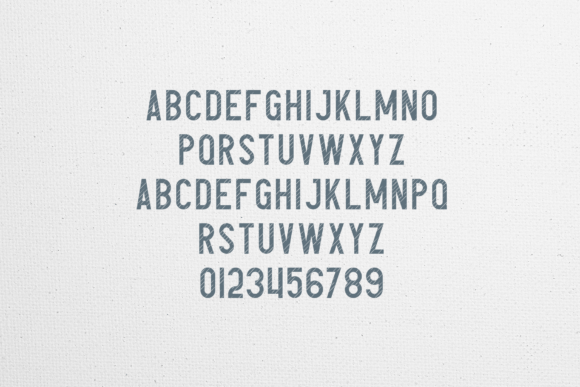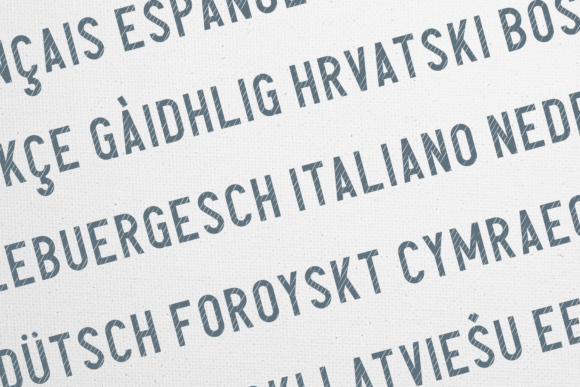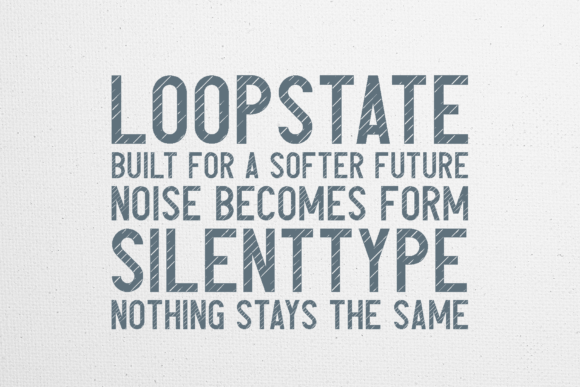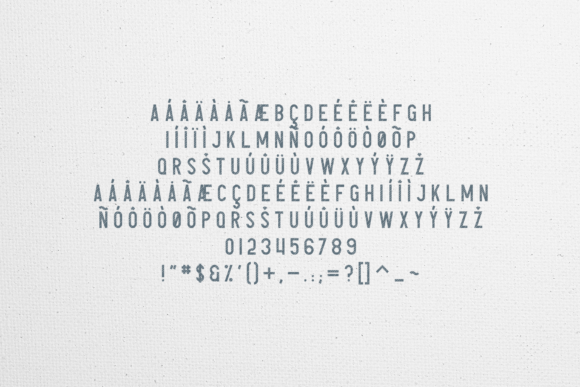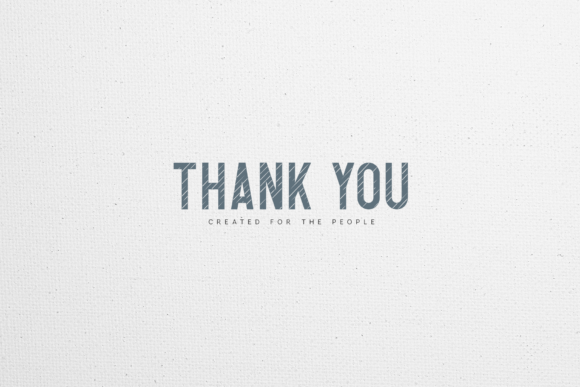
The Power of Typography: Unleashing the Potential of Avoqado Font
Have you ever been stuck on a design project, pouring over font options, trying to find that perfect combination of style and impact? We’ve all been there. For designers, the perfect font can make or break a project. And that’s where Avoqado Font comes in – a bold, vintage display sans serif typeface designed to grab attention and leave a lasting impression.
Avoqado Font is more than just a font – it’s a statement piece. With its modern structure and nostalgic graphic style, it’s the perfect tool for creating eye-catching titles and retro-inspired branding. Whether you’re designing posters, packaging, or social media visuals, Avoqado Font is sure to stand out. Its versatility and boldness make it a valuable addition to any designer’s toolkit, and its unique style is sure to add a touch of personality to any project.
Avoqado Font Key Features
- Font Family: Avoqado Font is a modern sans-serif typeface designed for digital use, making it ideal for web and mobile applications.
- Character Set: Supports a wide range of languages, including Latin, Cyrillic, and Greek alphabets, making it a versatile choice for global projects.
- Unique Characteristics: Avoqado Font features a distinctive, rounded sans-serif design with a focus on legibility and readability, making it perfect for body text and headings.
Avoqado Font Review
I recently had the chance to work with Avoqado Font, and I have to say, it’s an interesting addition to the world of typography. Here’s what I liked and didn’t like:
- The Avoqado Font has a unique, modern feel to it that could work well for trendy or innovative projects.
- The font is highly customizable, with a wide range of weights and styles available, making it suitable for various design applications.
- The font is also well-suited for body text, with clear and readable results even at smaller font sizes.
- The Avoqado Font may not be the best choice for more traditional or conservative projects, as its unique style may not be to every taste.
- The font may also require some additional styling or adjustments to work well in certain contexts, such as in combination with other fonts or at very large font sizes.
Overall, I’d say the Avoqado Font is a solid choice for designers looking to add some modern flair to their work. While it may not be for everyone, it’s definitely worth considering for the right project. With a bit of experimentation and tweaking, it can be a powerful tool in your design arsenal.
For the most out of Avoqado Font, use it for creative projects that require a modern, elegant feel. Common use cases include:
– Infographics
– Web design
– Print materials